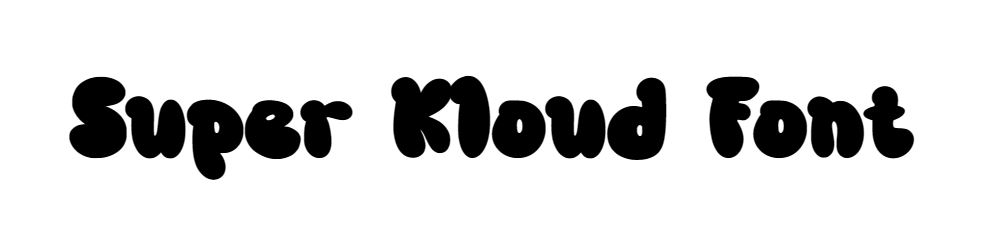
Super Kloud
Super Kloud is a cartoon font created by Saktype Studio (2023). It has a cheerful, hand-drawn look that makes people smile before they even read the words. You can download it for free and test it with your own words in the preview above.
What You Can Type With Super Kloud
You get every letter from A to Z in both cases and all the numbers from 0 to 9, which means Super Kloud can handle full sentences, dates and prices. Common punctuation such as &, !, ? and @ is included as well. It also has the accented letters you need for Spanish, French, Portuguese and Italian.
Where Super Kloud Works Best
Designers usually reach for fonts like Super Kloud when they're making kids' books, birthday invites and fun YouTube thumbnails. Cartoon fonts are great for short, fun lines. If you place it over a busy photo, add a thick outline or a drop shadow so it stays readable.
Does Super Kloud support accented letters?
Yes. Super Kloud includes the accented letters needed for Spanish, French, Portuguese and Italian, so it works for more than just English.